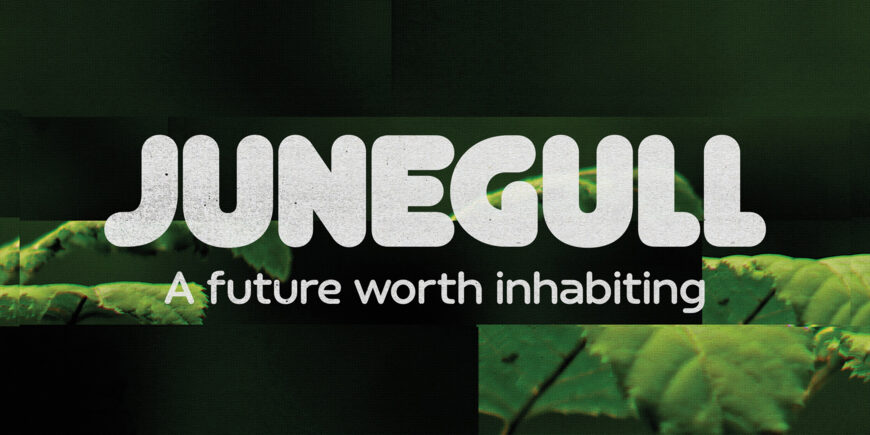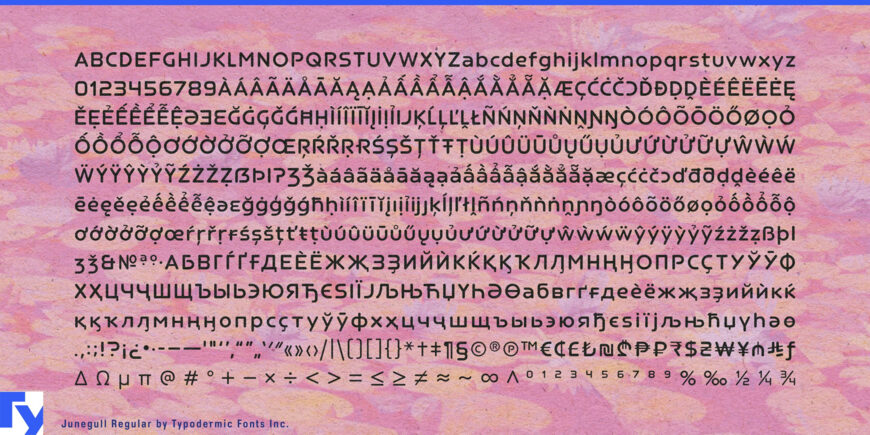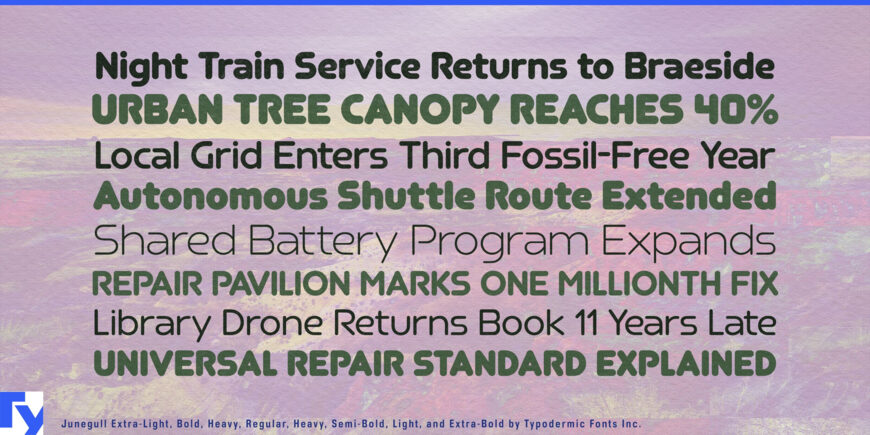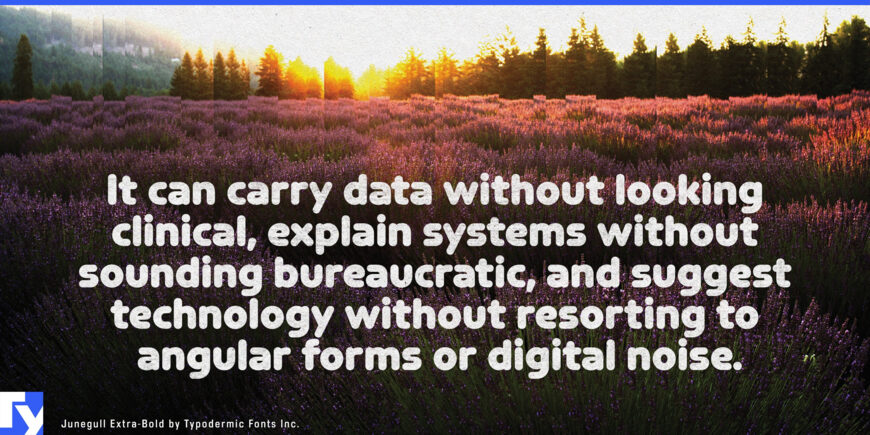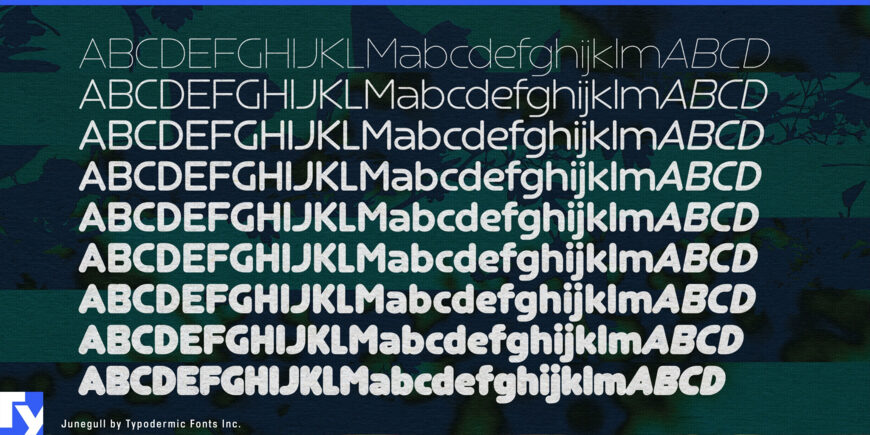
Junegull Font
Junegull combines rounded display forms with enough structure to support a broader visual system. Its friendly, buoyant shapes suit family attractions, food packaging, agricultural technology, environmental programs, public events, educational products, hospitality, signage, and identities that need warmth without becoming childish.
Designed by: Typodermic Fonts